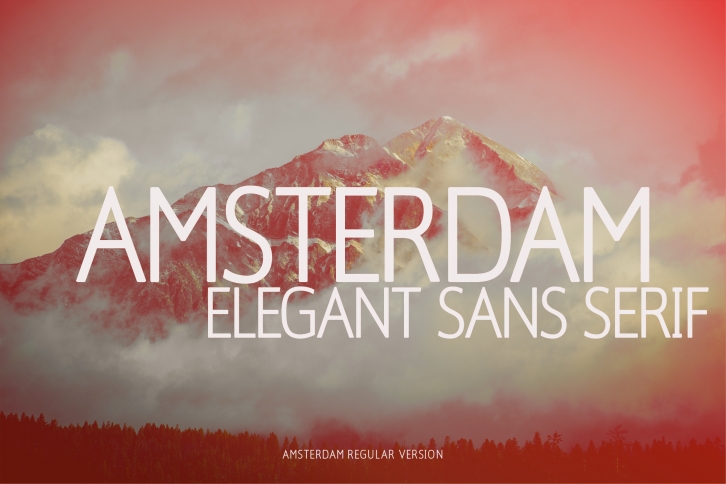
Amsterdam Regular Versionl Elegant font sans serif Download
Amsterdam Regular Versionl Elegant sans serif is a great font that was designed by Huntype Design Studio. Imagine the amount of combinations you can create using this font! The archive is 9.58 MB and it was released on February 21, 2020. Amsterdam Regular Versionl Elegant sans serif looks beautiful on wedding invitations, greeting cards, logos, posters, labels, t-shirt designs, logos, business cards and is perfect for use in ink or watercolor works, fashion, magazines, packaging and food menus, children's books and more!